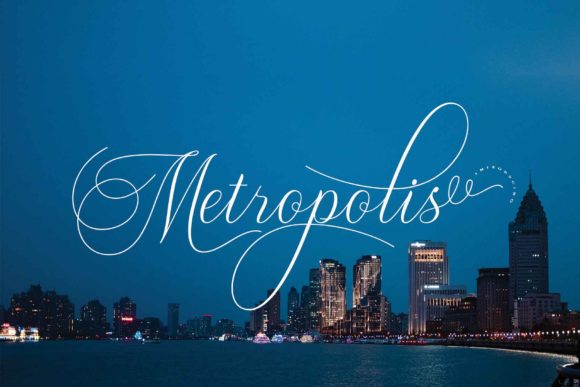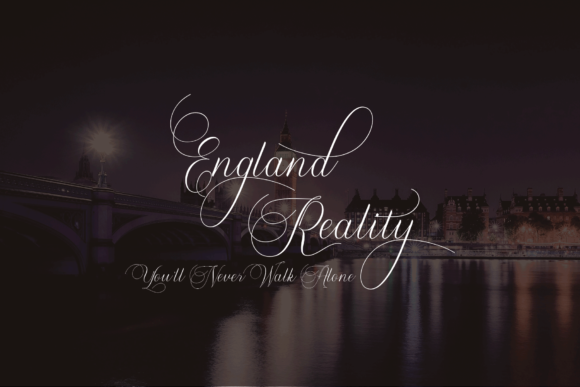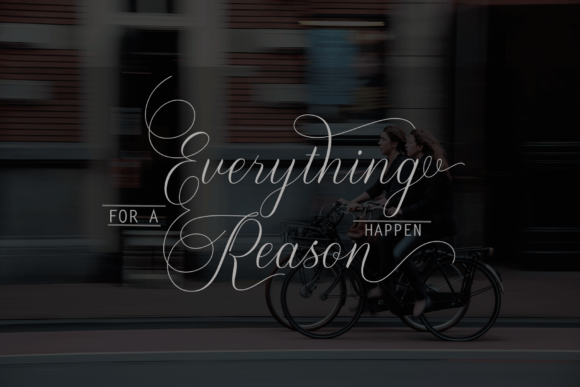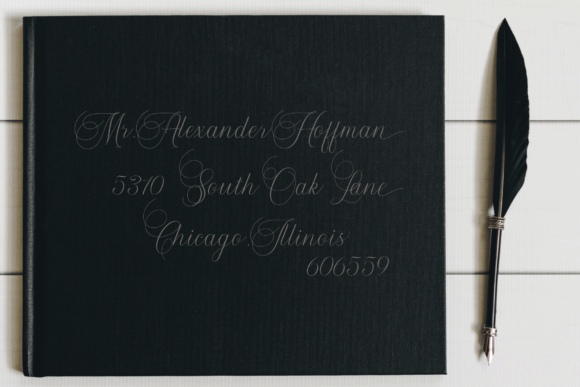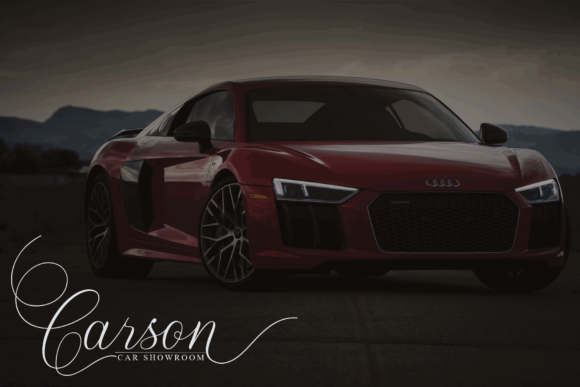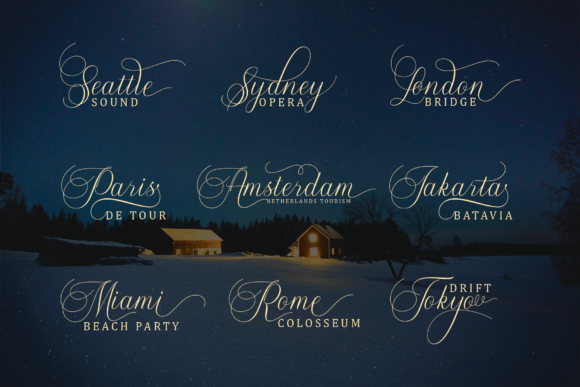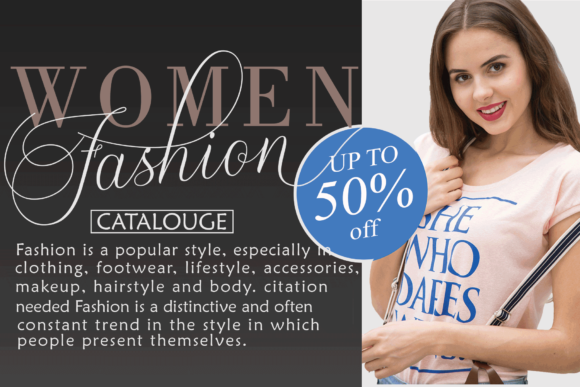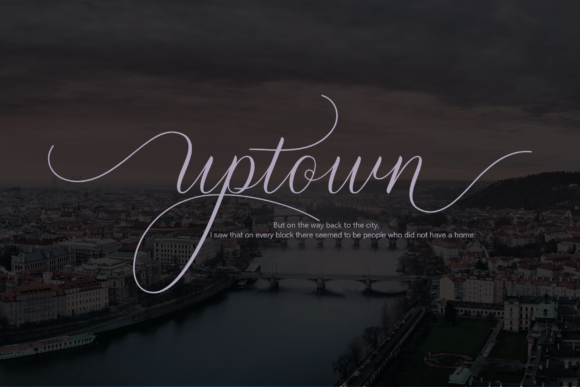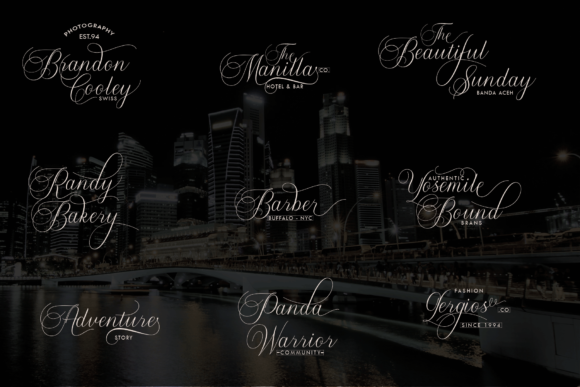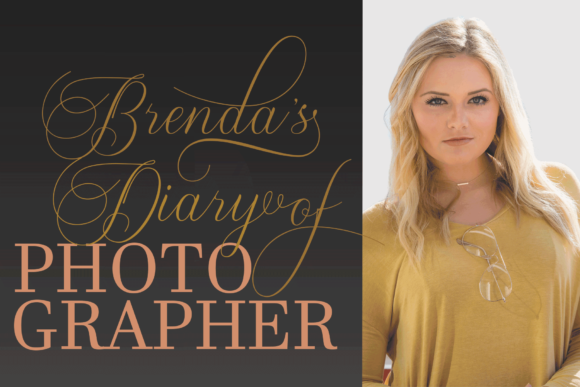
HomeScript FontsMetropolis Font Script Fonts Metropolis Font FacebookXPinterestWhatsApp Metropolis Font Poster 2 Metropolis Font Poster 3 Metropolis Font Poster 4 Metropolis Font Poster 5 Metropolis Font Poster 6 Metropolis Font Poster 7 Metropolis Font Poster 8 Metropolis Font Poster 9 Metropolis Font Poster 10 About Metropolis Font Metropolis is a bold and striking handwritten font that updates classic calligraphy with a sophisticated feel. DOWNLOAD NOW People also explored Begin Font Purple Hope Font Aletta Martta Font Anything Font Ankashi Font DDroid Font Morning Christmas Font Family Font White Sand Font 308 0 TagsMetropolis Font Previous articleJackstone FontNext articleStation Kids Font LEAVE A REPLY Cancel reply Comment: Please enter your comment! Name:* Please enter your name here Email:* You have entered an incorrect email address! Please enter your email address here Website: Save my name, email, and website in this browser for the next time I comment. Personal Use Free Nickainley Personal Use Free Read more about this font Samureix Personal Use Free Read more about this font Travelling Free Brush Personal Use Free Read more about this font Waverly Date Personal Use Free Read more about this font BLOG Best Fonts for T-Shirt Design – Top 2025 Picks In 2025, t-shirt design has become more than just fashion—it's a form of self-expression. Whether you're... Transform Your Website: Elevate Your Typography with 7 Best Web Font Generators Where to Buy American Fonts Online in 2024 The 10 Best Handwriting Fonts to Add Personality to Your Designs